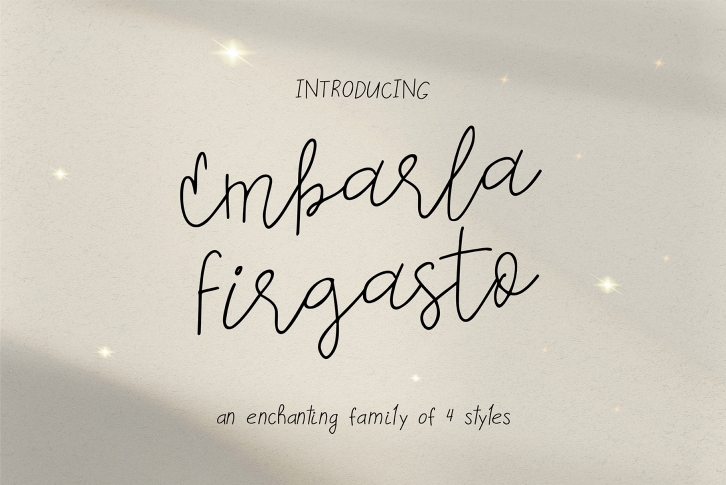
Embarla Firgasto Family is a trendy and unique font with an authentic style. It was designed by MrTypeman and it's a great choice for creative people who need such a font. It was released on January 14, 2020 and the file size is 8.34 MB. Embarla Firgasto Family will add an organic vibe to any design idea!